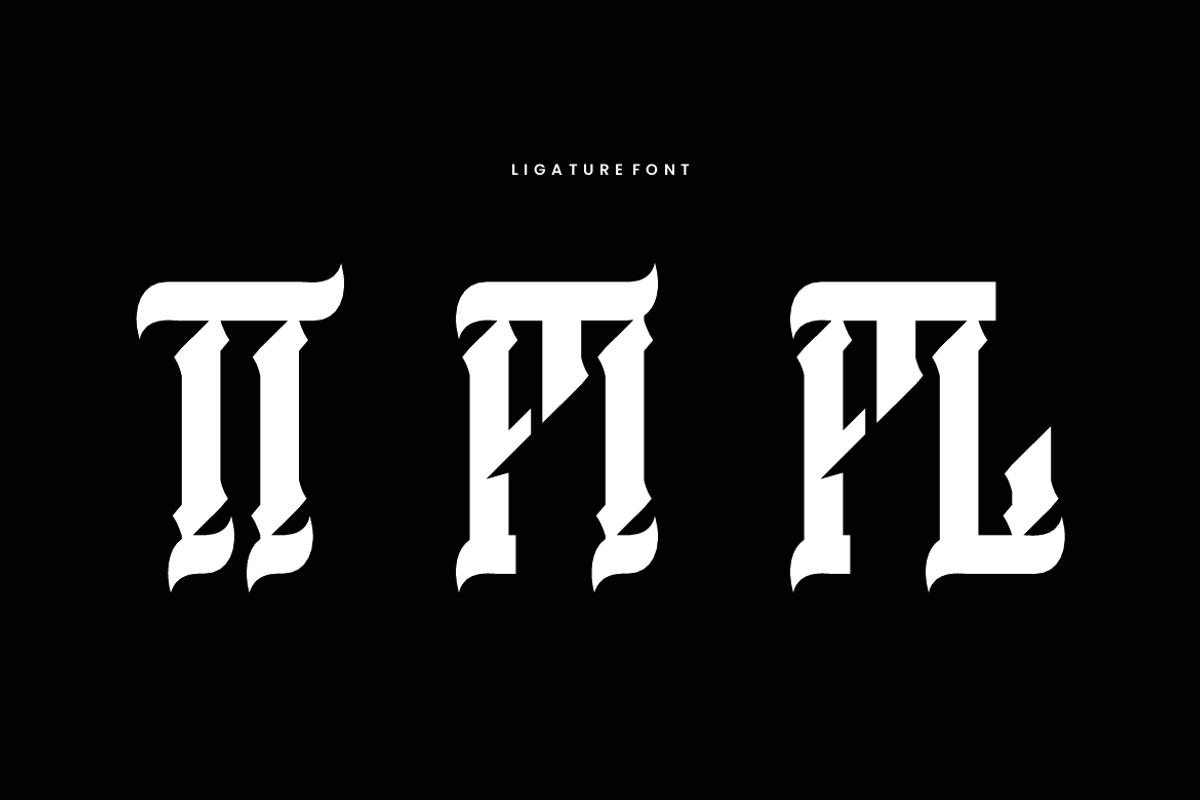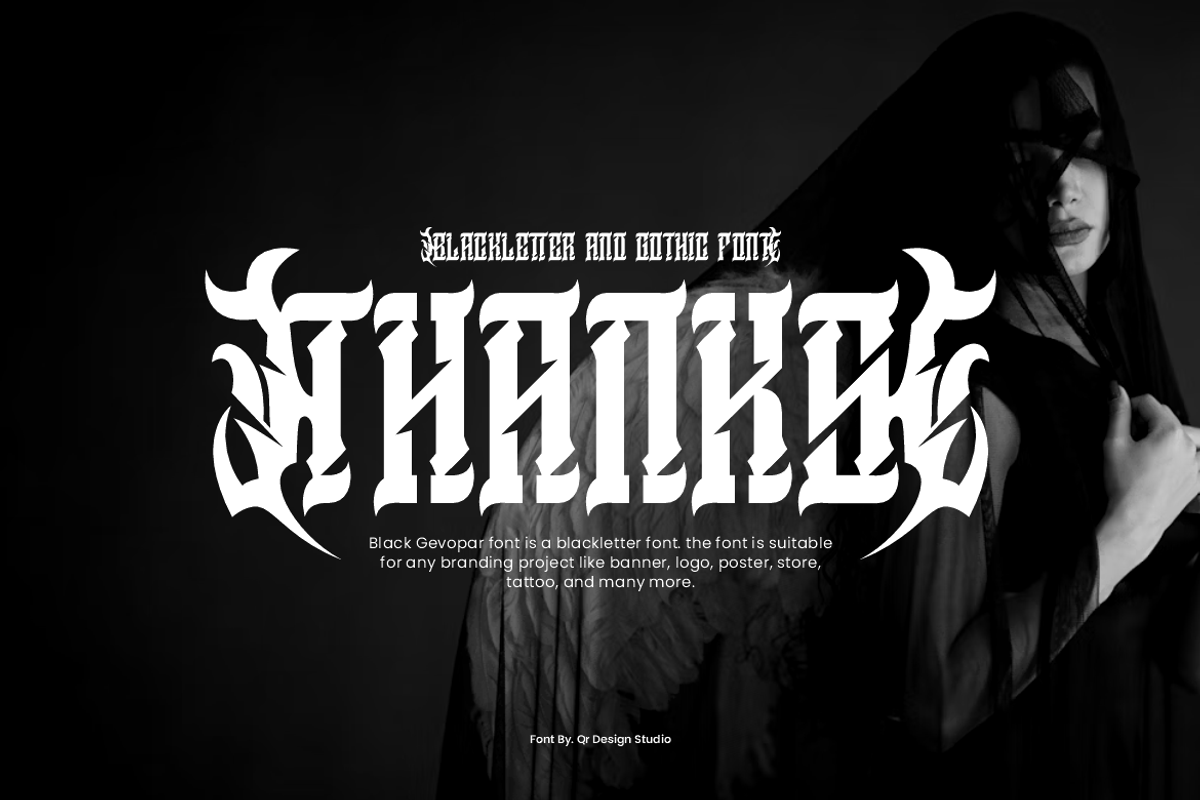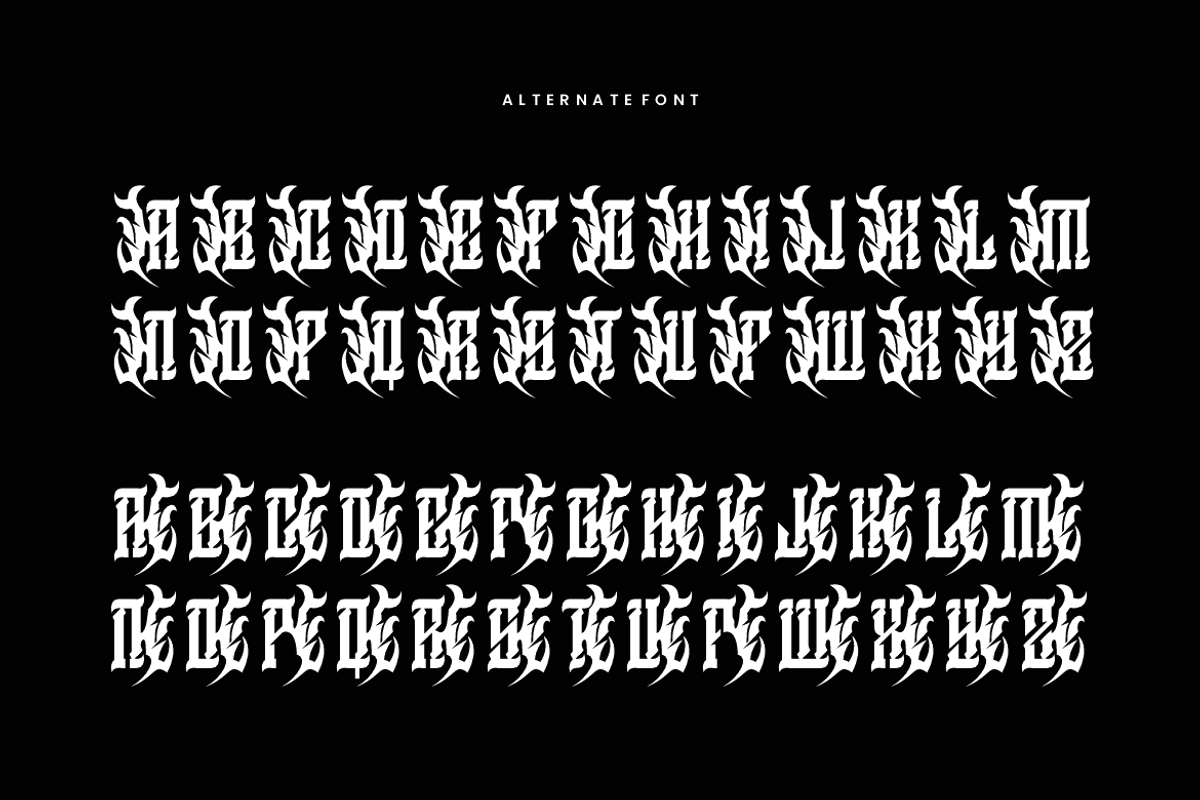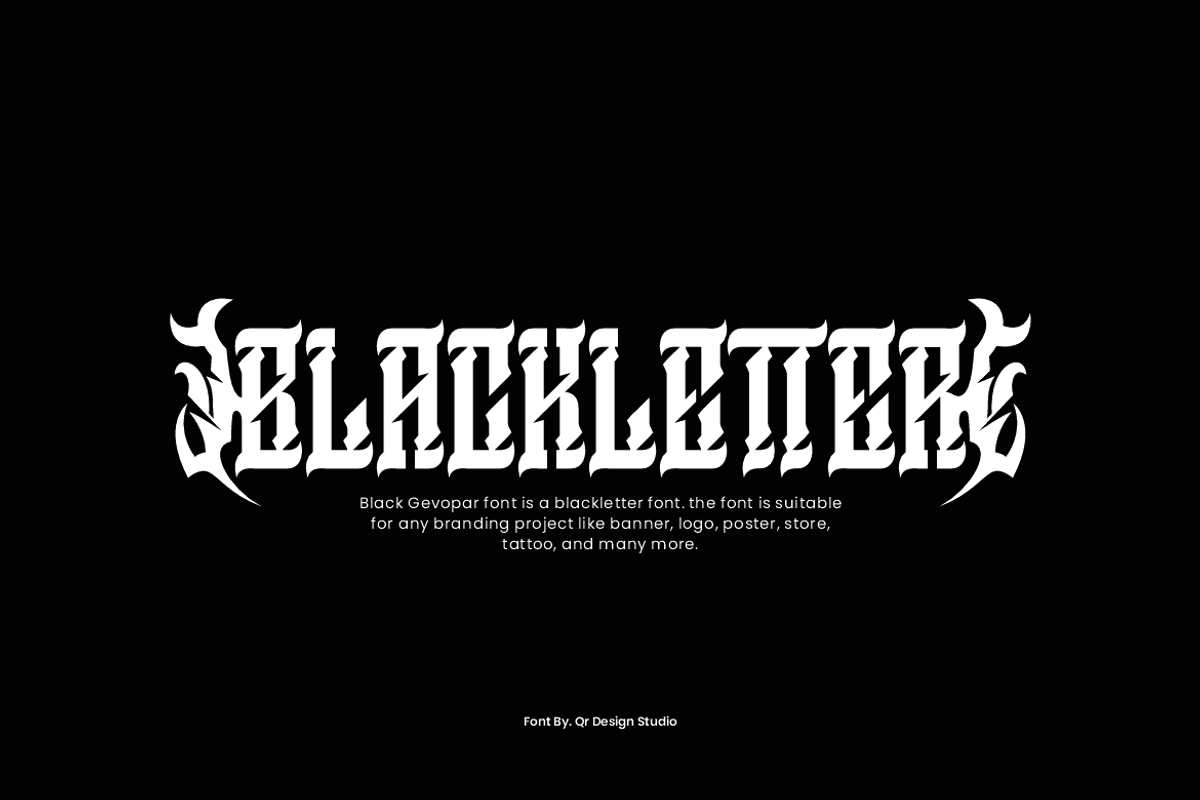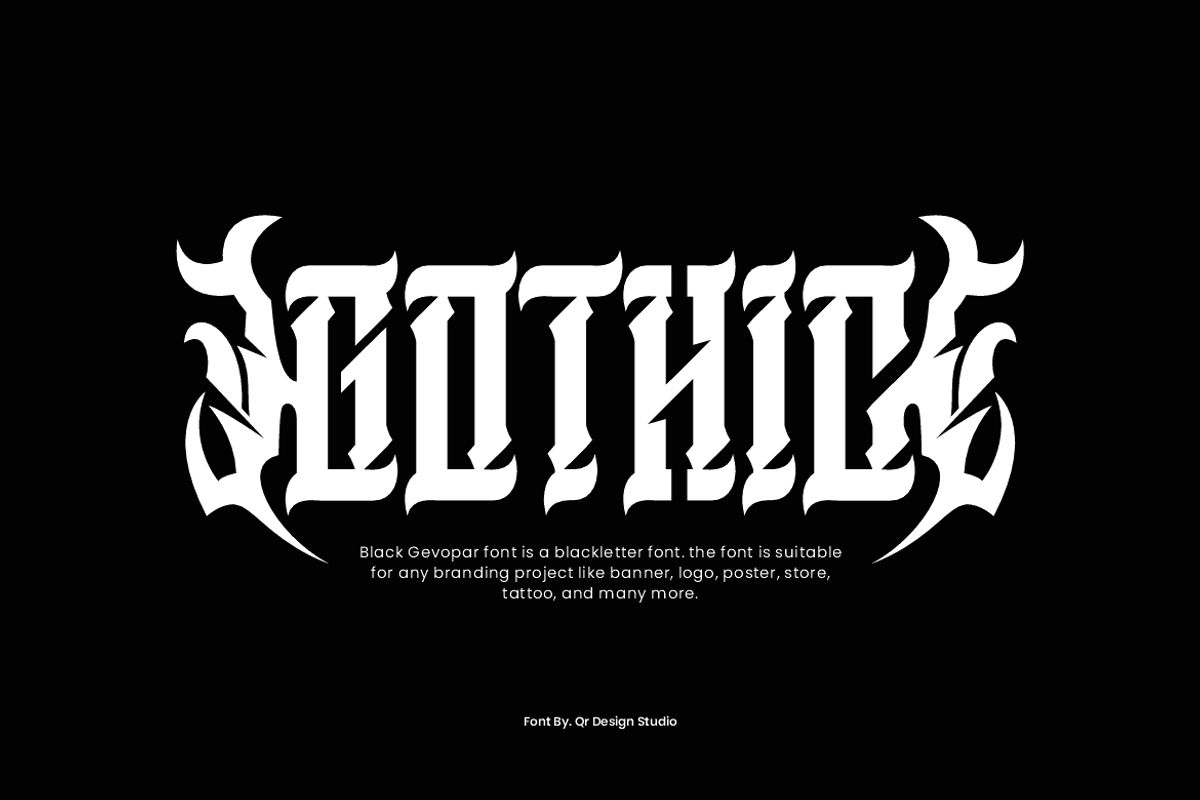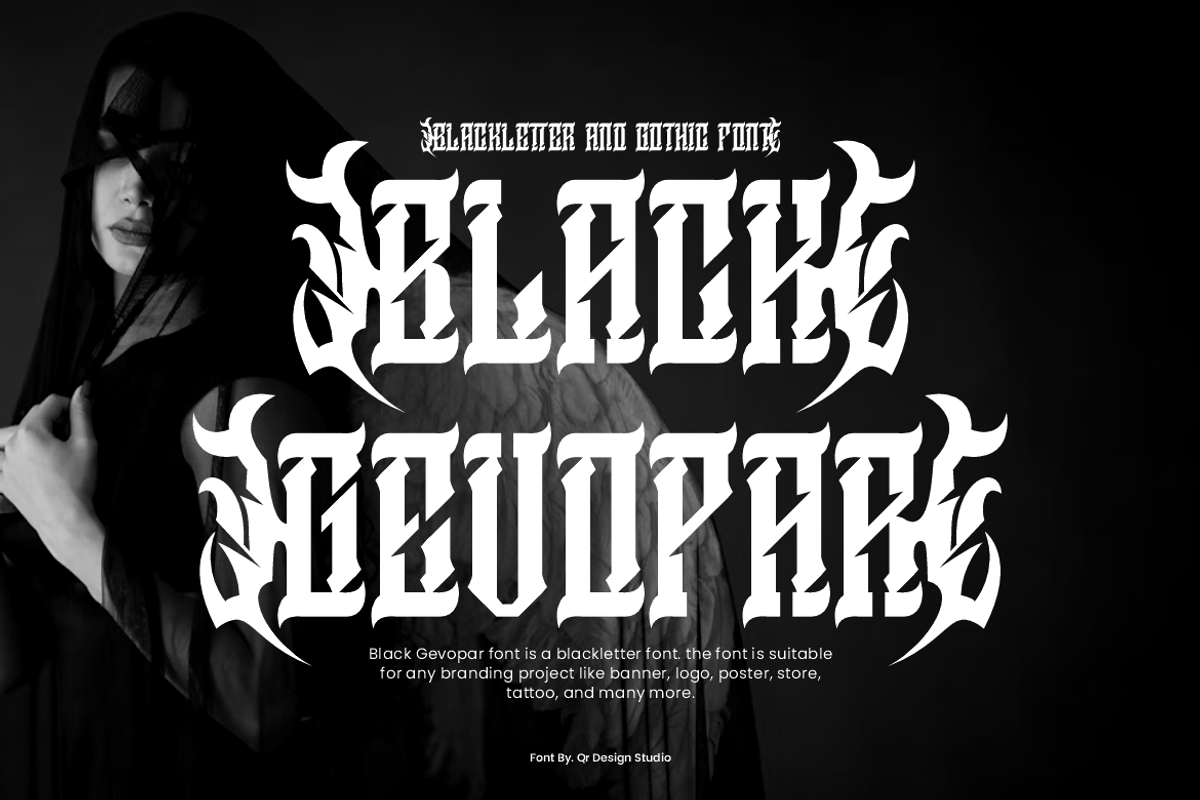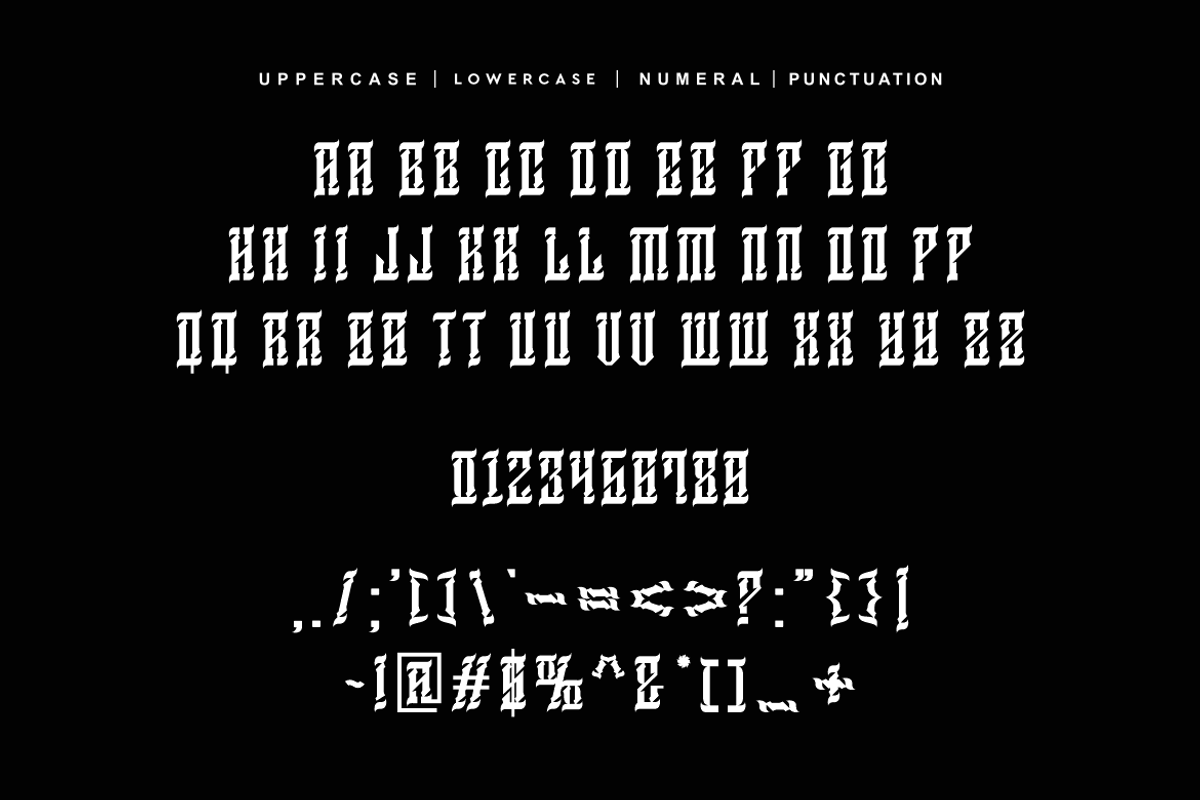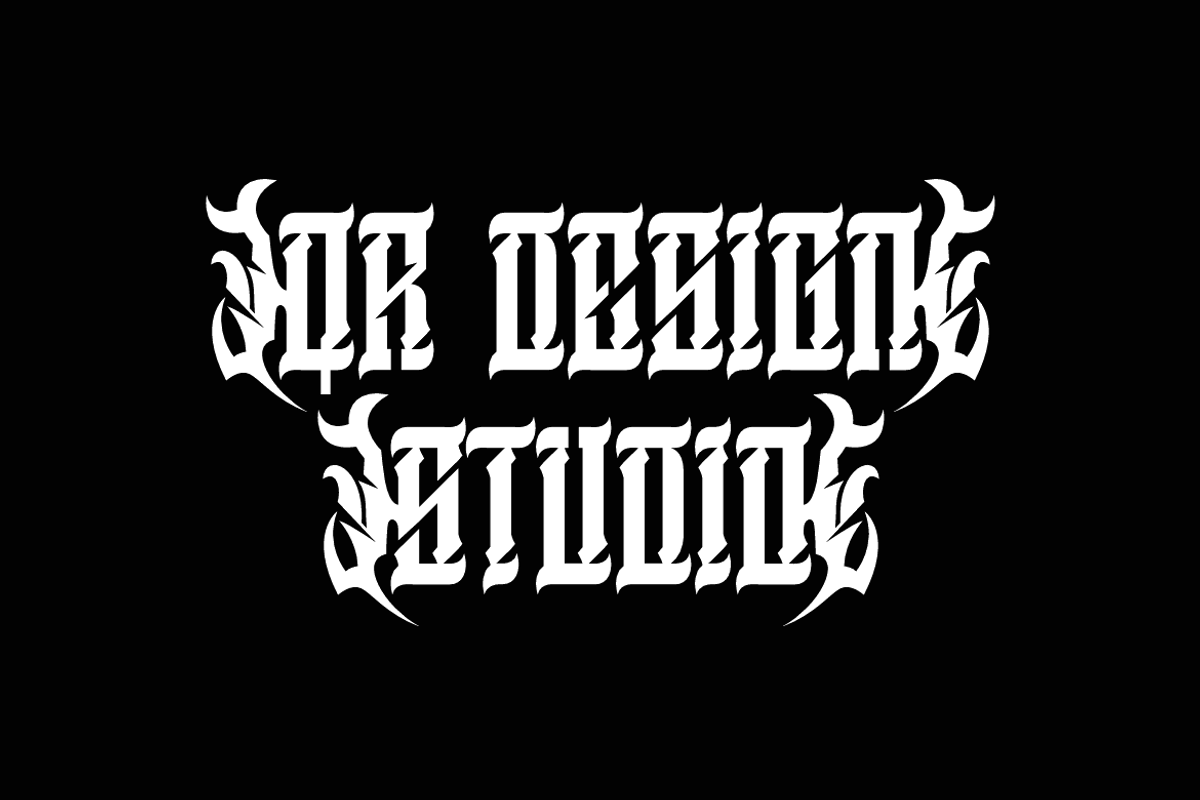
Black Gevopar - Gothic Font
Black Gevopar Font is a blackletter and authentic display font. The font is suitable for any branding project like poster, logo, tattoo , and many more. Outstanding in a wide range of contexts.